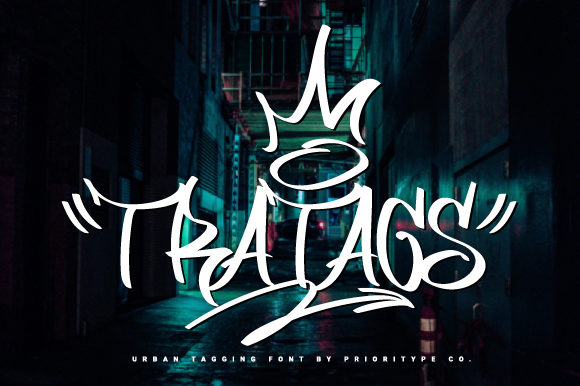
Journey into the world of Tratags Font, where creativity and expression dance together in perfect harmony. This captivating display font, hailing from the visionary minds at Prioritype, is a masterpiece crafted to elevate your designs to new heights. Brace yourself for a font that's not just a collection of letters, but a gateway to a universe of boundless possibilities.
Immerse yourself in the urban vibes of Tratags, a font that exudes a sense of youthful energy and effortless cool. Its unique style is a breath of fresh air, perfect for informal or casual designs that demand a touch of edginess. Unleash your imagination and let Tratags take you on an adventure through the realm of typography.
Picture this: a cover letter that stands out from the crowd, leaving a lasting impression on potential employers. Tratags Font is your secret weapon, transforming your words into a visual symphony that captivates and engages. Its bold personality commands attention, while its urban flair adds a touch of intrigue that sets you apart from the competition.
Envision a social media post that sparks a wave of likes and shares, propelling your brand to new heights. Tratags Font is your catalyst, turning your captions into captivating headlines that dance across the screen, demanding attention and igniting curiosity. Its unique style is the perfect canvas for expressing your brand's individuality, making every post a visual masterpiece.
Prepare to be amazed as you witness Tratags Font weave its magic into your designs. Whether it's a flyer, poster, or website, Tratags brings a touch of urban sophistication that captivates and inspires. Its versatility knows no bounds, adapting seamlessly to a myriad of projects, from playful invitations to eye-catching marketing materials.
Experience the Tratags Font difference and unleash the full potential of your creativity. Its endless variations ignite a spark of inspiration, inviting you to explore new horizons and push the boundaries of design. Dive into a world where fonts are not just letters, but powerful tools that transform your ideas into tangible works of art.